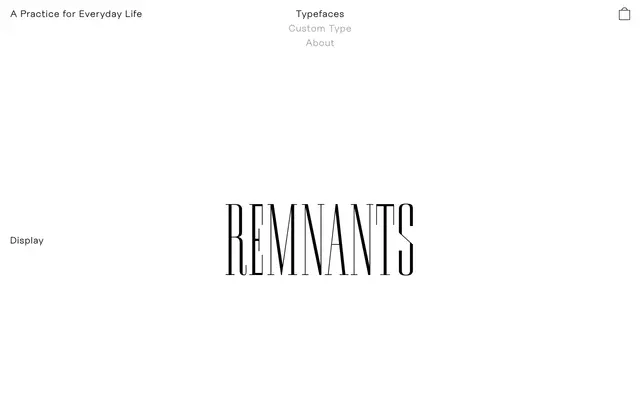
A condensed display serif drawn from lettering found on an old Serbian book cover, expanded into a full Latin character set with elongated monoline serifs.
Originating from a display type found on a Serbian book cover, the design was built out into a complete Latin character set while preserving something of the visual character of Cyrillic letterforms. The elongated monoline serifs give it a distinctive, slightly archaic elegance suited to larger sizes. It has been used in record sleeve design and cultural institution merchandise, suggesting a natural fit for arts and editorial contexts.
Derived from Cyrillic letterforms found on an old Serbian book cover, expanded into a Latin character set with elongated monoline serifs. Its condensed proportions and ornamental quality place it firmly in the display category.